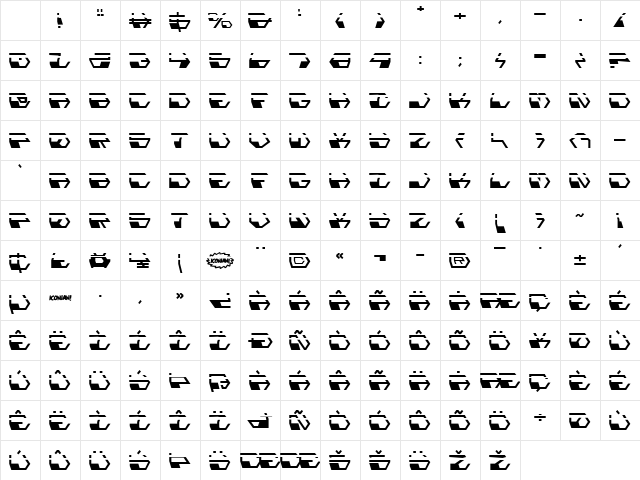
Deranian Laser Regular Free Font
Deranian Laser Regular
Deranian Laser Family
Deranian Laser Regular
Design Context for Deranian Laser
Deranian Laser is a composed and adaptable typeface that performs quietly and consistently across a wide range of design contexts.